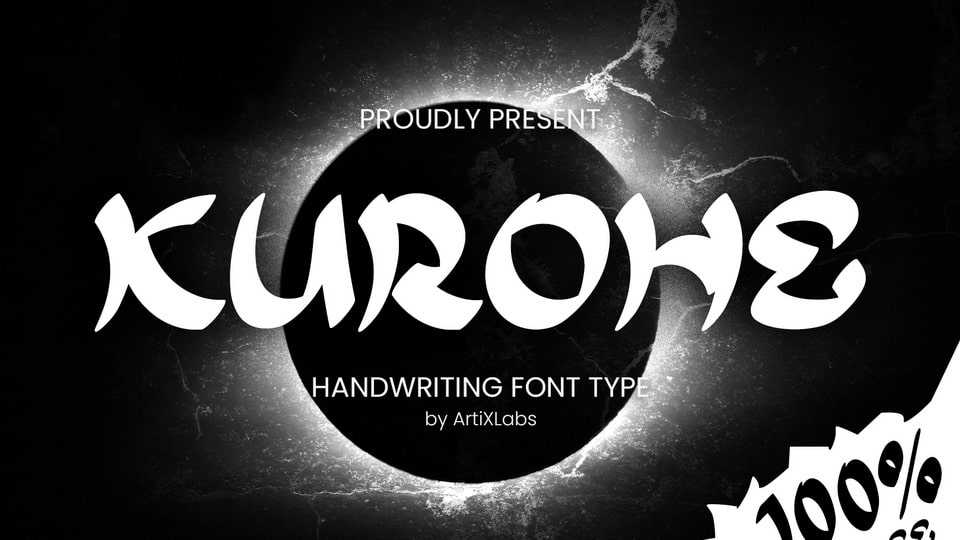
Download Kurohe font, a bold and unique display typeface inspired by Japanese and graffiti vibes. Perfect for logos, branding, posters, streetwear designs, and any creative project that needs a strong personality.